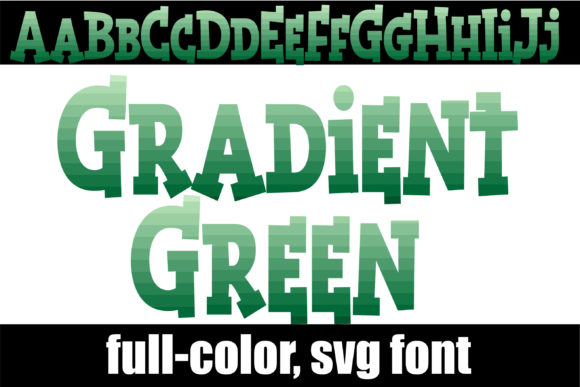
**Gradient Green Font: A Splash of Irish Charm for Your Designs**
In a world of monotonous fonts, Gradient Green Font emerges as a vibrant burst of color, ready to transform your creative projects into captivating masterpieces. Inspired by the verdant hues of St. Patrick's Day, this full-color font is a visual delight that breathes life into your words.
Picture this: emerald green letters, adorned with intricate serifs, dancing across your designs like playful leprechauns. As your eyes trace each character, you'll feel the magic of Ireland come alive, filling your heart with joy and whimsy.
**Why Choose Gradient Green Font?**
* **A Touch of Irish Charm:** Embrace the spirit of St. Patrick's Day with this font that exudes Irish charm. Its vibrant greens will add a festive touch to your designs, making them stand out from the ordinary.
* **Full-Color Brilliance:** Experience the beauty of full-color fonts with Gradient Green Font. Its rich, gradient hues will captivate your audience, creating designs that are as visually striking as they are meaningful.
**Bring Your Designs to Life with Gradient Green Font**
Whether you're designing invitations, social media graphics, or website elements, Gradient Green Font is the perfect choice to add a touch of enchantment. Its vibrant hues and playful personality will elevate your designs, leaving a lasting impression on your audience.
So, embark on a creative journey with Gradient Green Font and let your imagination soar. Experience the joy of designing with color and witness the transformation of your projects into captivating works of art.